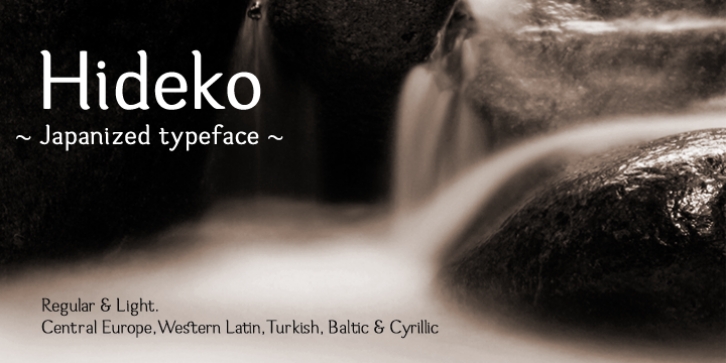
Hideko was published by Khaito Gengo. Hideko contains 2 styles and family package options.
Hideko is a visually unique font that has the essence of both serif and san-serif fonts through integrating the body structure of san-serif while retaining the calligraphy from serif. Hideko was inspired by synthesizing Japanese calligraphy and western letters. During the process of creating Hideko, I attempted to make a font only for oriental use, but the result is a font with versatile uses. This multicultural font is most effectively used for oriental restaurants but is also ideal for western cafes, posters, books, etc. Along with the cultural synthesis of Japanese and western letters, Hideko features various ligatures, stylistic alternates, fractions, and languages as well.